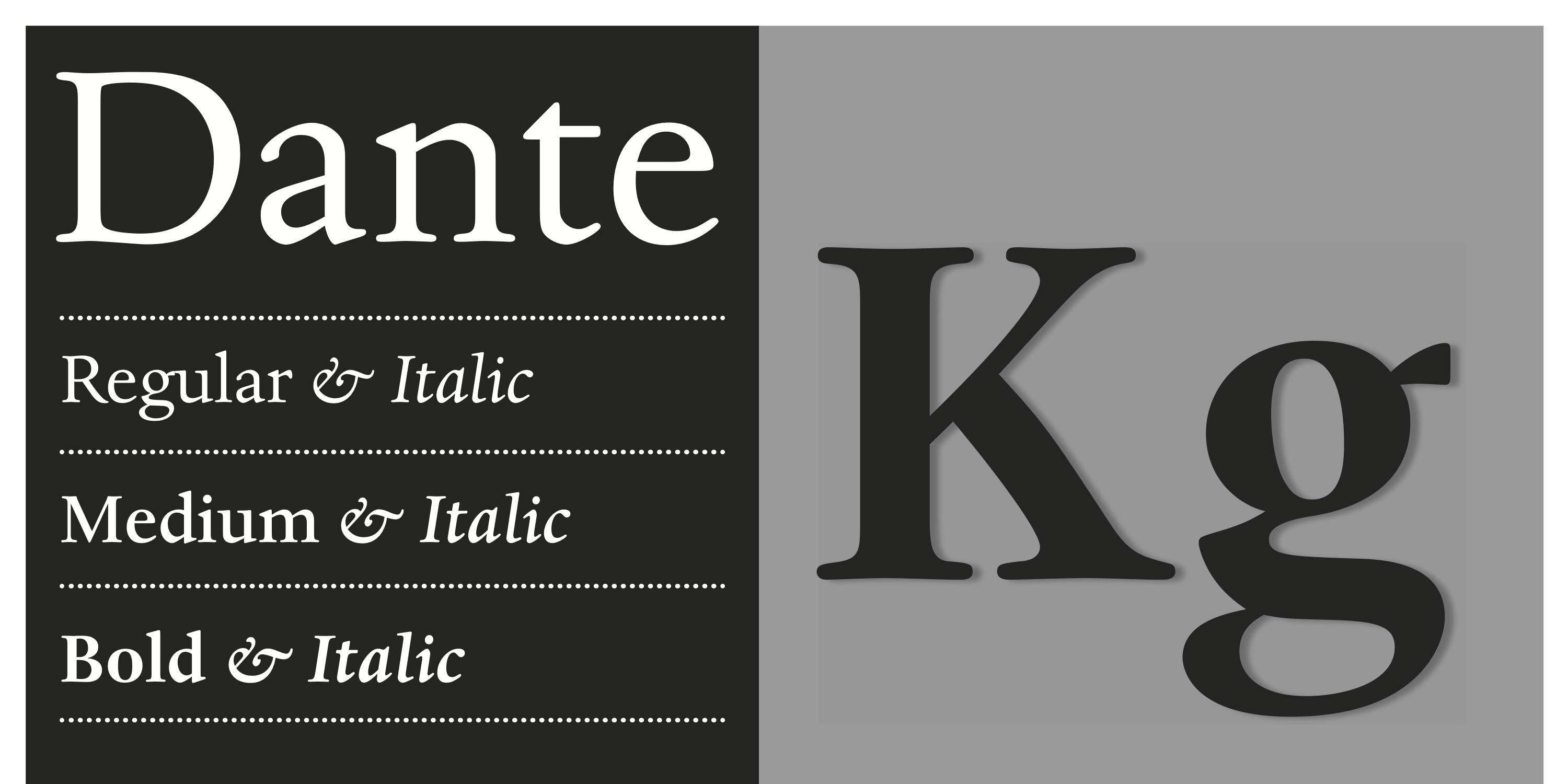
Dante Font is perfect for literary publications, poetry collections, classical book publishing, academic journals, philosophical texts, and sophisticated editorial design. Its poetic character makes it ideal for university presses, literary magazines, philosophy departments, Renaissance studies, and any application requiring eloquent typography that conveys intellectual depth, artistic mastery, and the timeless beauty of written literature.
Dante Font is exciting because it embodies the divine inspiration of literary genius through letterforms that echo the rhythmic flow and classical beauty of Italian Renaissance poetry. Its harmonious proportions and graceful details reflect the artistic perfection found in Dante's Divine Comedy, making it perfect for publications seeking to convey literary excellence and intellectual sophistication. The font's poetic spirit transforms ordinary text into vessels of literary artistry and scholarly contemplation.
Dante Font family includes literary weight variations typically featuring Regular, Medium, and Bold options with elegant italic styles that honor calligraphic traditions. The family often incorporates classical characters, poetic ligatures, and Renaissance-inspired ornaments designed for high-quality literary publishing, providing designers with comprehensive tools for creating authentic, literature-focused typographic compositions.
When selecting literary typography solutions, Dante Font Free Download represents an exceptional choice for scholarly publishing projects. This distinguished typeface brings instant literary credibility to any publication, making it invaluable for academic institutions, literary publishers, and cultural organizations specializing in classical content. Whether you're developing poetry collections, creating philosophical publications, or designing academic literary materials, Dante Font provides the poetic elegance and intellectual authority essential for honoring literary traditions in today's scholarly publishing landscape.